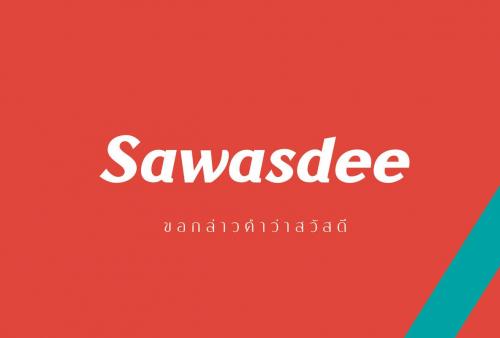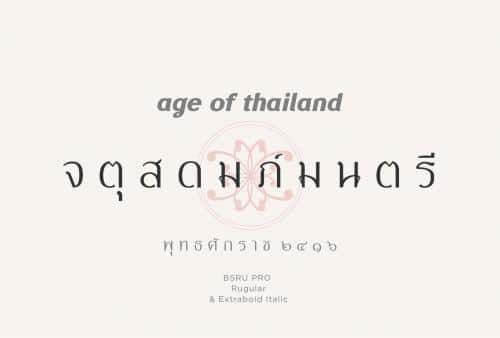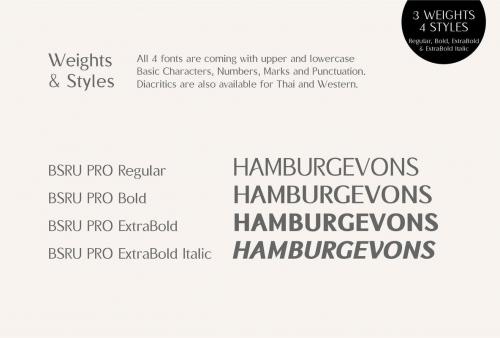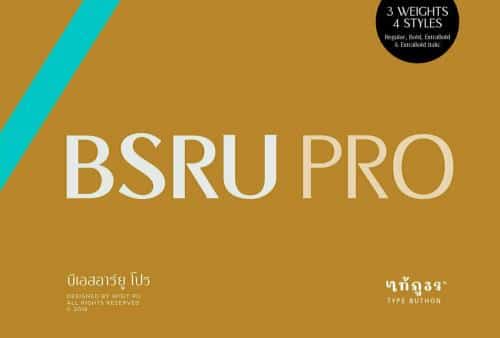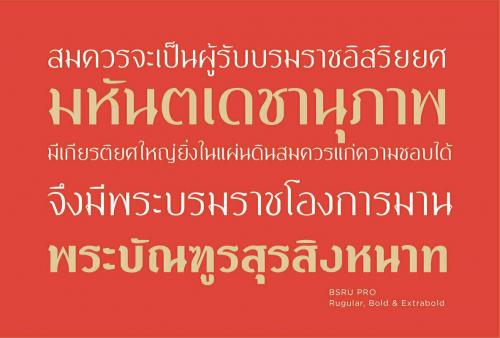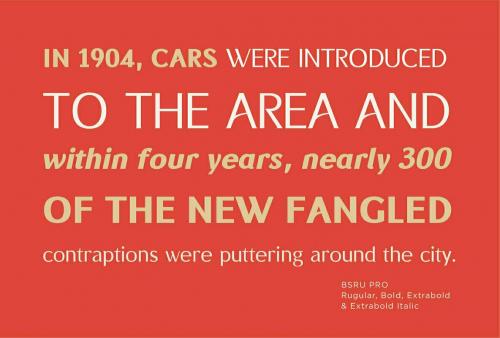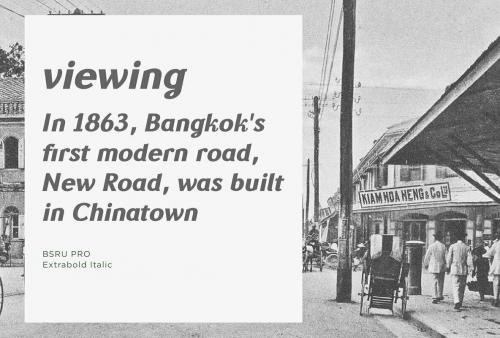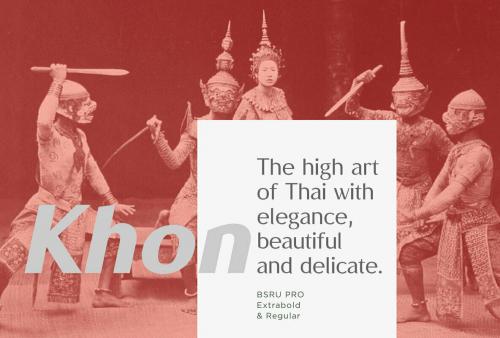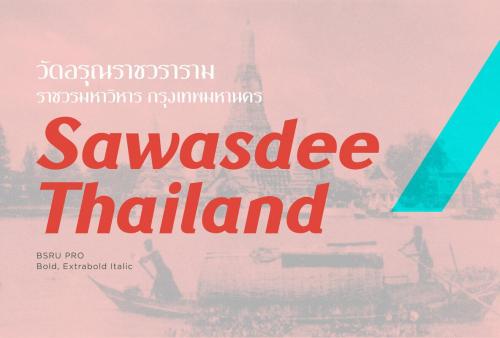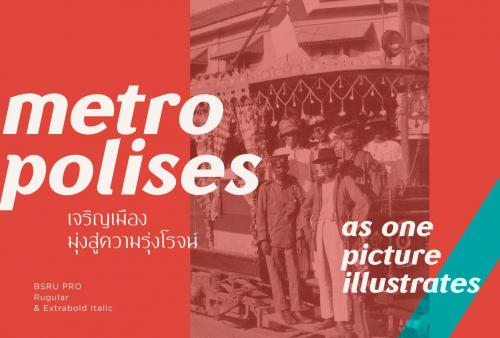
BSRU-Bansomdej [V.2.0] is a display typeface inspired by contemporary classic Thai style. This typeface have many alternative weights [4 Weighrs & 6 Styles], perfect for usage in posters headlines and/or body text (especially the latin type).
- Designer: Wisit Potiwat